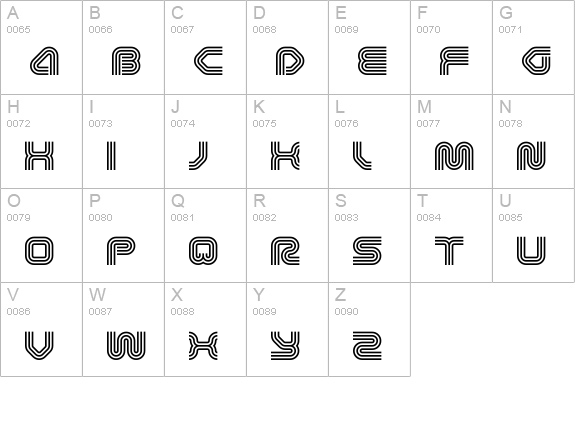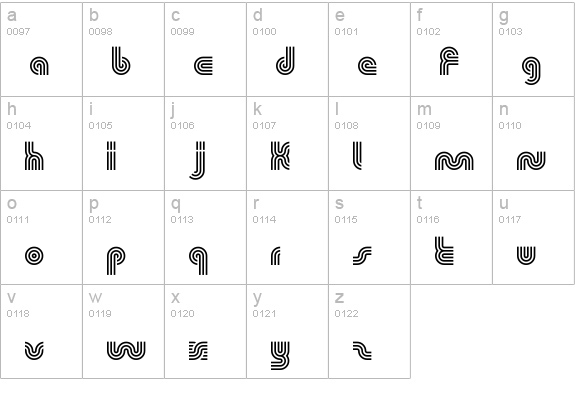
DS Lane Font Details
DS Lane font is a versatile and modern typeface that brings a sleek and contemporary look to any design project. With its clean lines and geometric shapes, DS Lane exudes a sense of sophistication and professionalism. This font is perfect for a wide range of applications, from branding and advertising to web design and print materials. The best part? DS Lane font is completely free to download at FontsMarket.com! Whether you're a seasoned designer looking to freshen up your font collection or a beginner in need of a stylish typeface, DS Lane is the perfect choice. Don't miss out on this fantastic opportunity to elevate your designs with the elegant and timeless DS Lane font. Download it now and start creating stunning visuals that will leave a lasting impression.